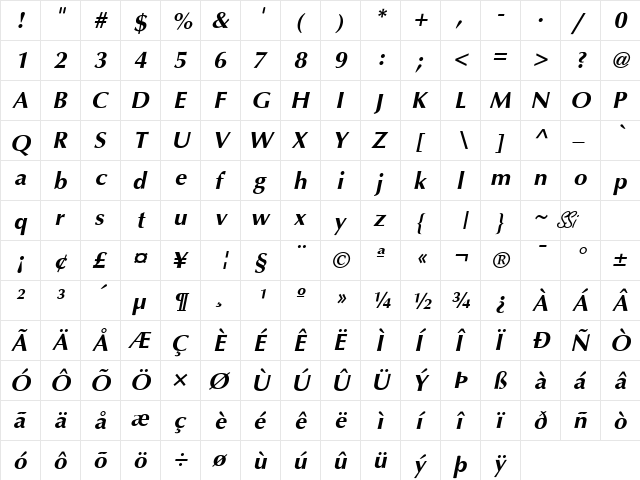
Interface SSi Bold Italic
Design Context for Interface SSi Typeface
Interface SSi is a composed and adaptable typeface that performs quietly and consistently across a wide range of design contexts. The slanted form adds forward momentum and visual energy. The heavy weight commands attention and anchors typographic hierarchies.
Pro Tip: Try Interface SSi for annotation and caption copy alongside an upright companion — the contrast in angle creates a dynamic but ordered typographic system.